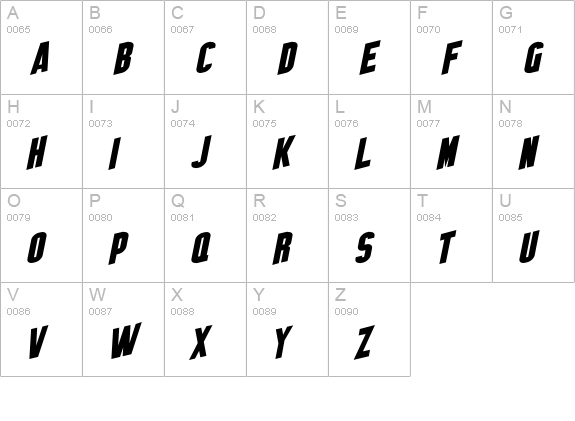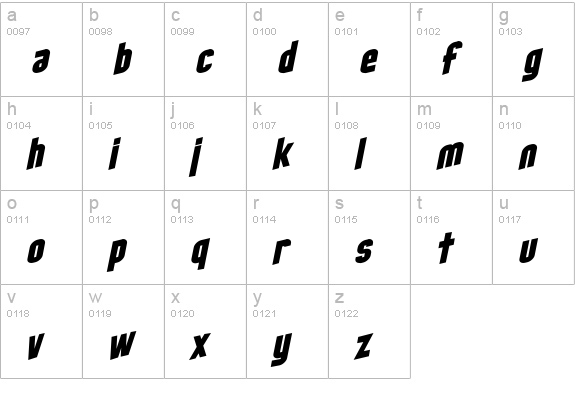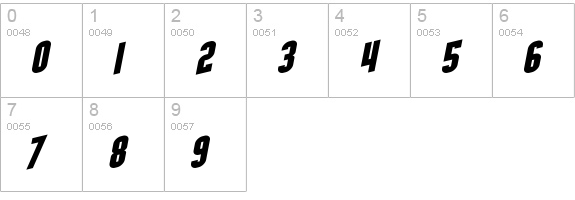
SF Obliquities Font Details
SF Obliquities is a mesmerizing font that effortlessly combines elegance and modernity. With its sleek and slanted letterforms, this typeface exudes a sense of sophistication and edginess that is perfect for any creative project. The unique slant of SF Obliquities adds a dynamic and captivating touch to your designs, making them stand out from the crowd. It brings a sense of movement and energy, making it a great choice for branding, logo design, and headlines. Not only does SF Obliquities offer an impressive aesthetic, but it also provides excellent legibility, ensuring that your message is easily conveyed to your audience. Each letter is meticulously crafted to maintain readability, even at smaller sizes. One of the most remarkable aspects of SF Obliquities is that it is available for free. Yes, you read that right! This stunning font can be freely downloaded at FontsMarket.com, allowing you to enhance your projects without breaking the bank. Whether you're a professional designer or a DIY enthusiast, SF Obliquities is a font that offers versatility and style in abundance. Its sleek and slanted design will add a touch of sophistication to your designs, making them truly unforgettable. So why wait? Download SF Obliquities today from FontsMarket.com and elevate your designs to a whole new level. Discover the freedom of creating stunning visuals with this incredible font.